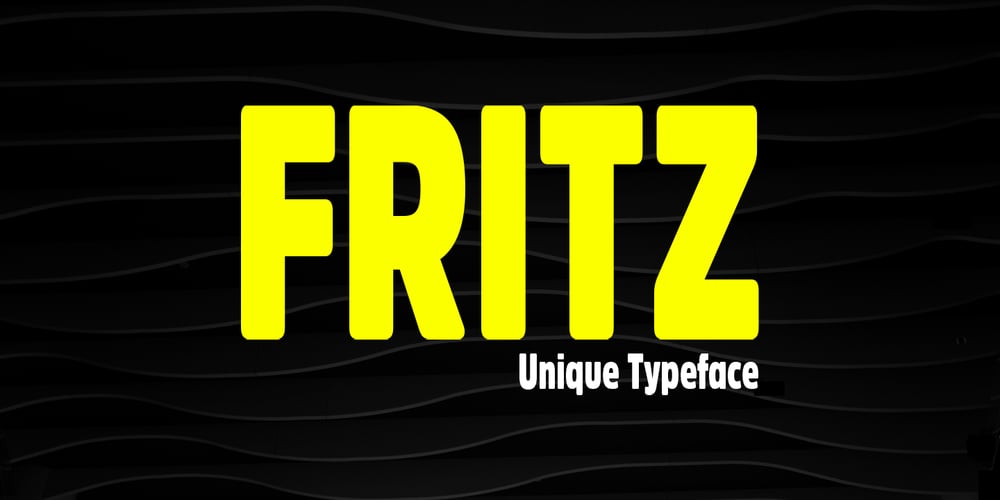
Fritz Display Font Family was designed by Jean Johnson and published by Designova. Fritz Display contains 2 styles and family package options. Fritz is a unique typeface for logo, branding, headlines, big text & display usage. This sweet rounded typeface is inspired by famous restaurant brands. The typeface is best suited for creating outstanding logos, promotional content and marketing graphics that can grab the attention of your clients. Please see the examples shown above to get an idea about the capability of this typeface.